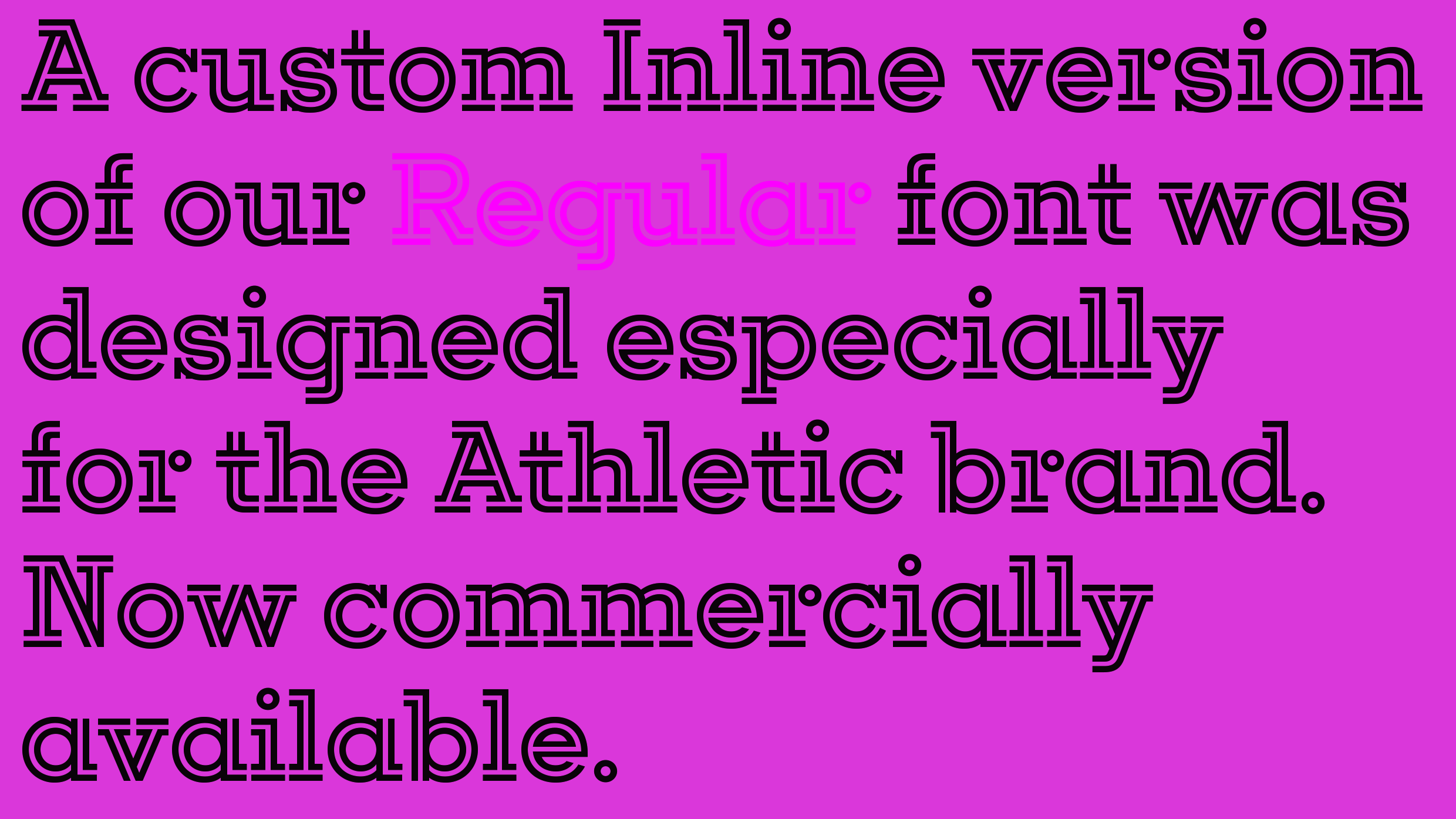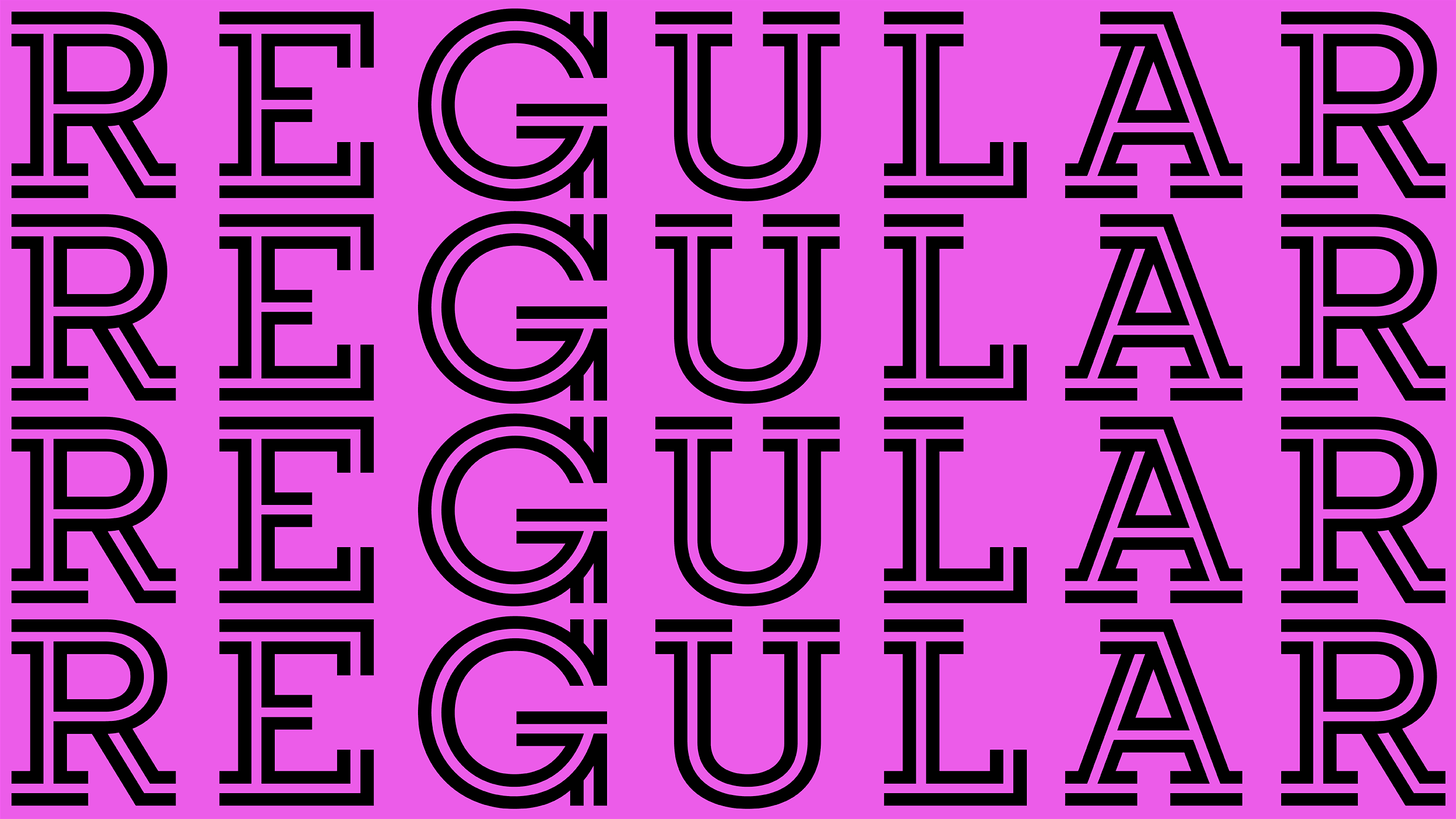
Regular Inline Bold
A stylish Inline version of our popular Regular Slab font, Regular Inline is a striking headline font, originally designed as a custom brand typeface for The Athletic sports news site – expertly art directed by Gretel Design and Strategy Studio in Brooklyn, New York in 2019.